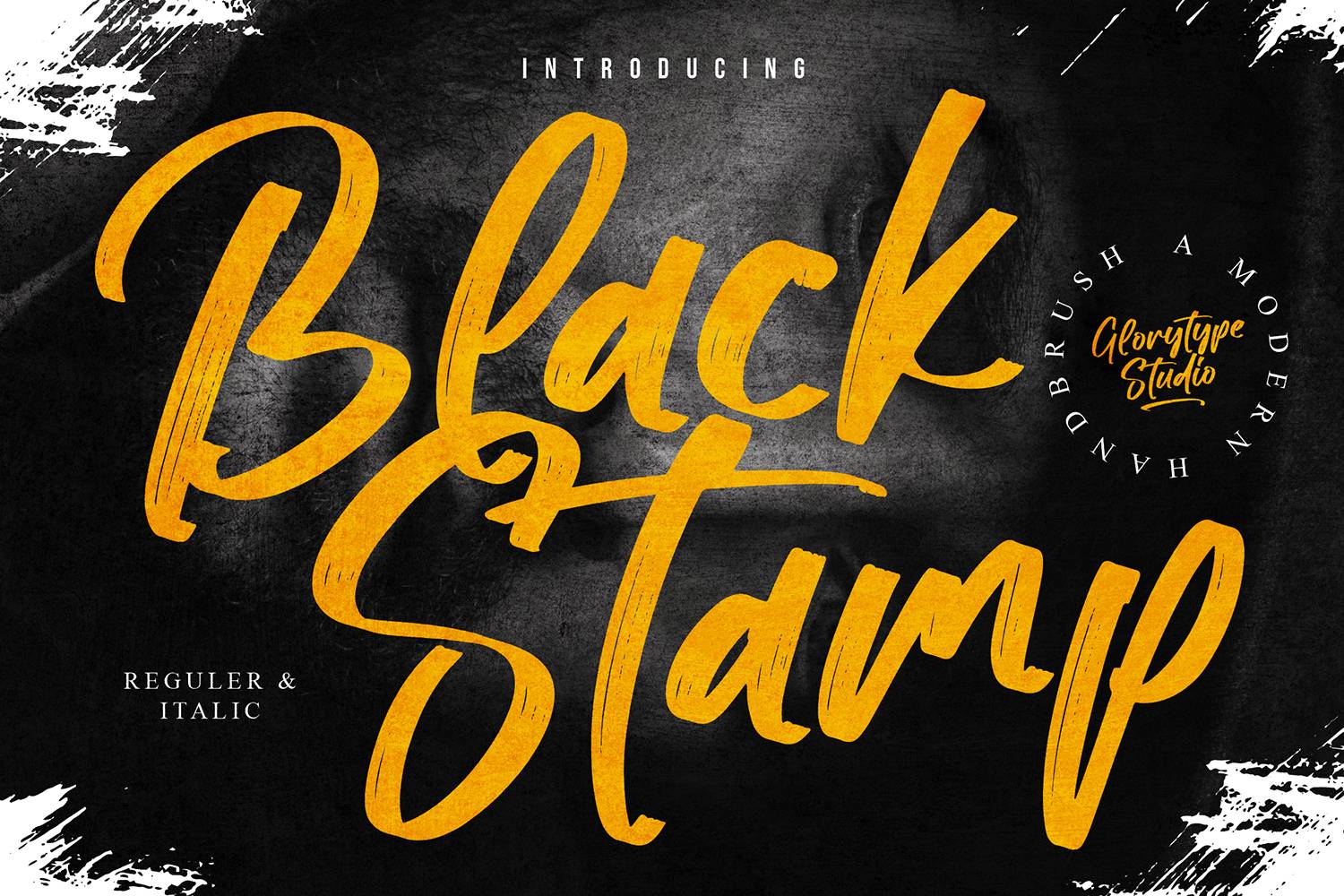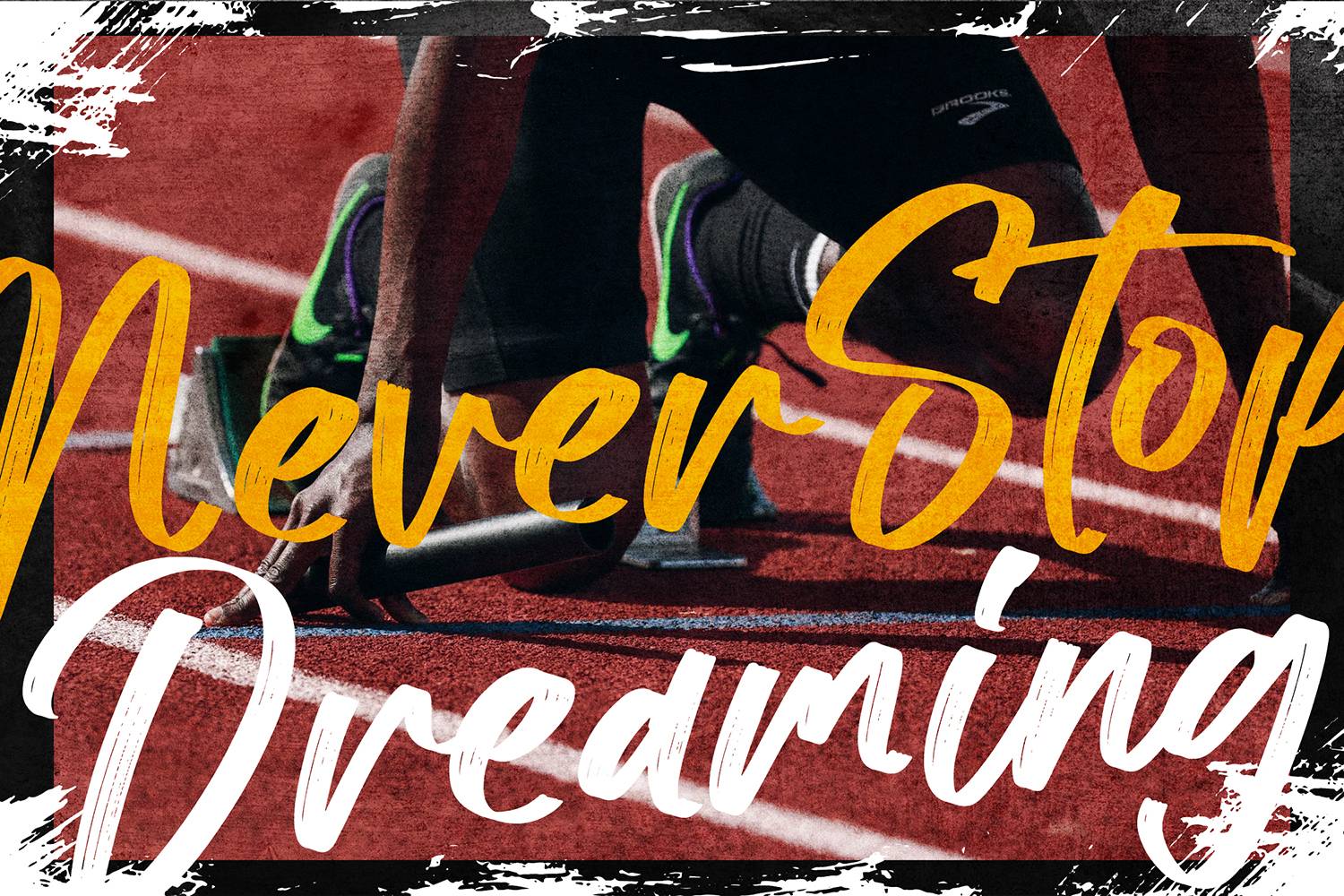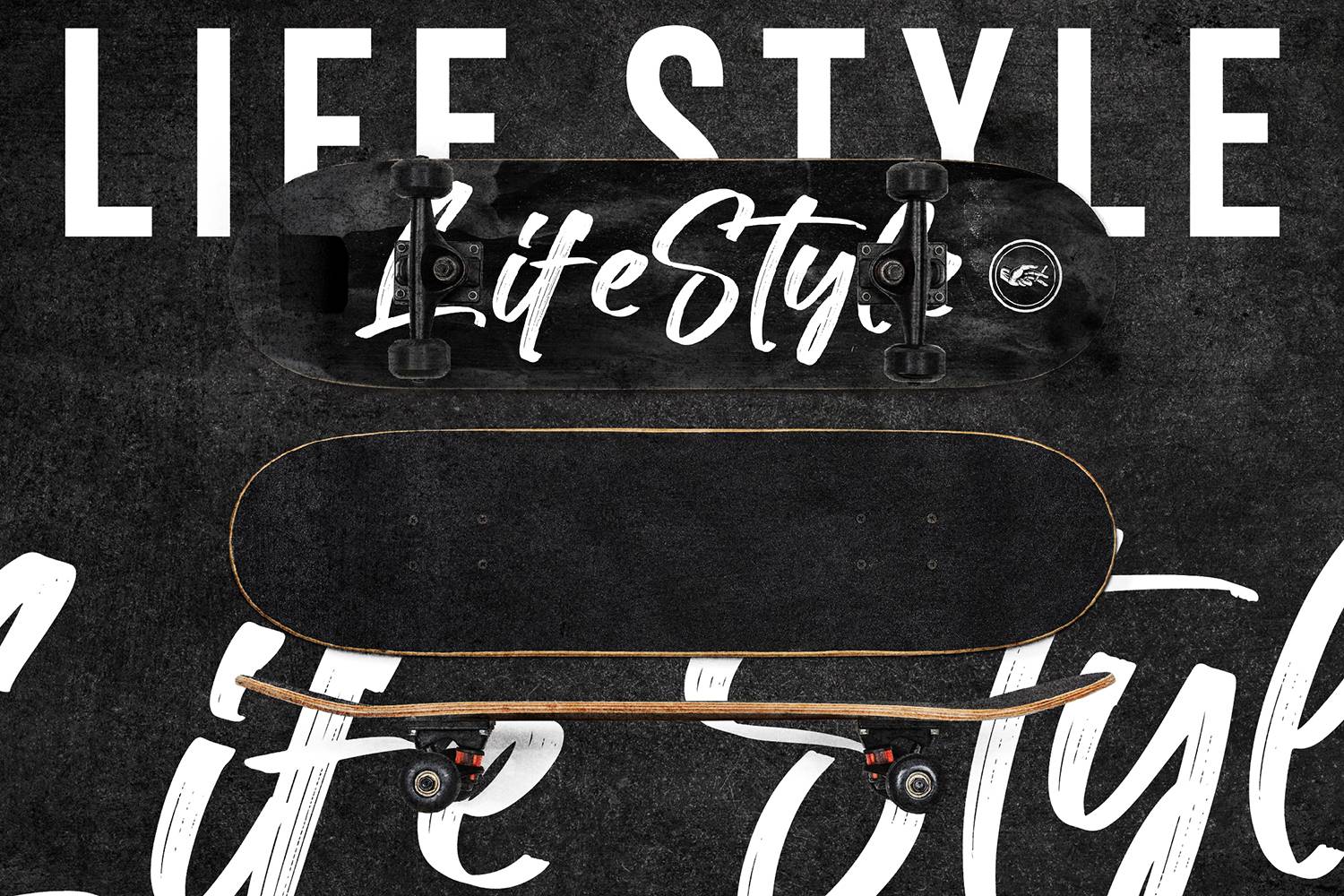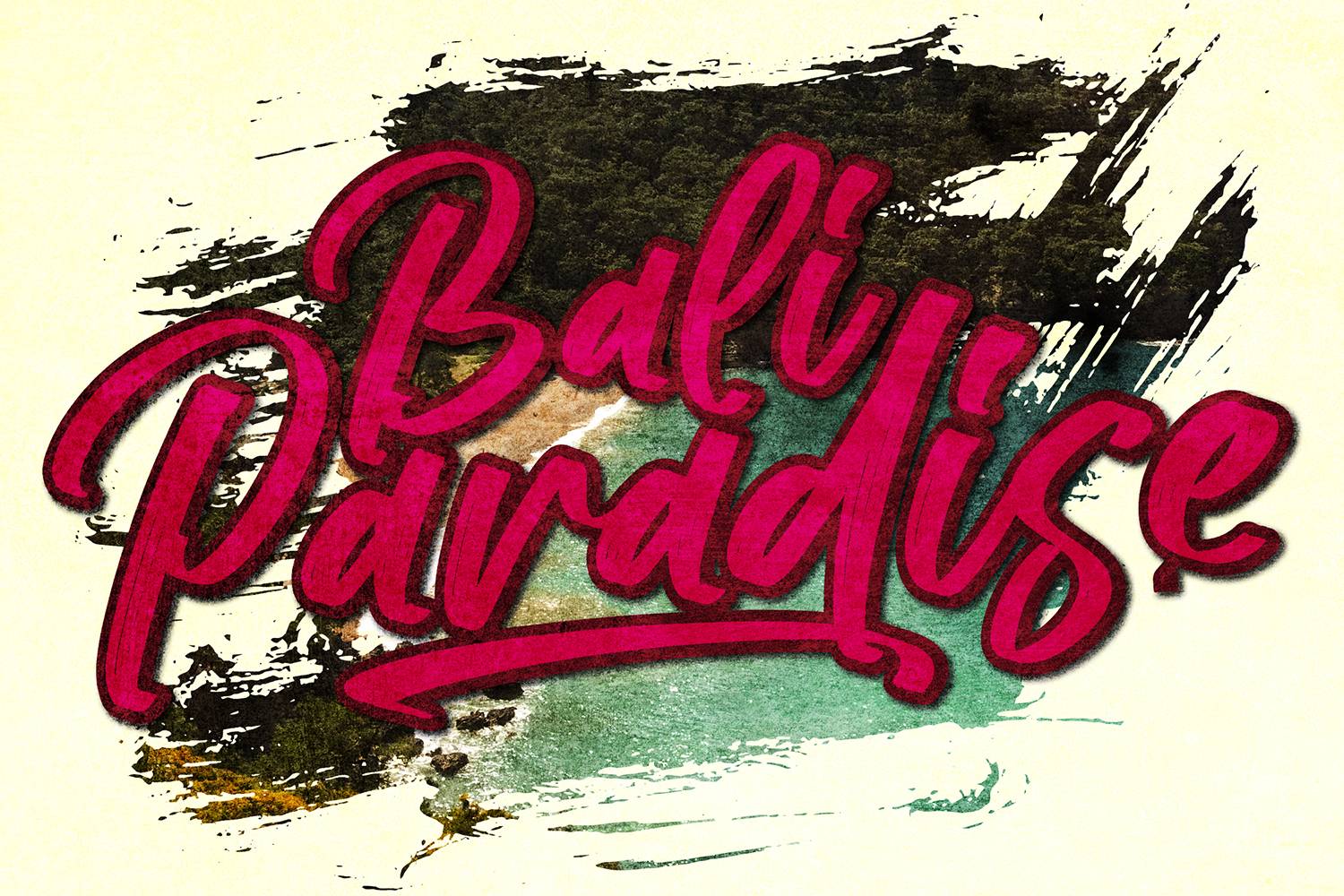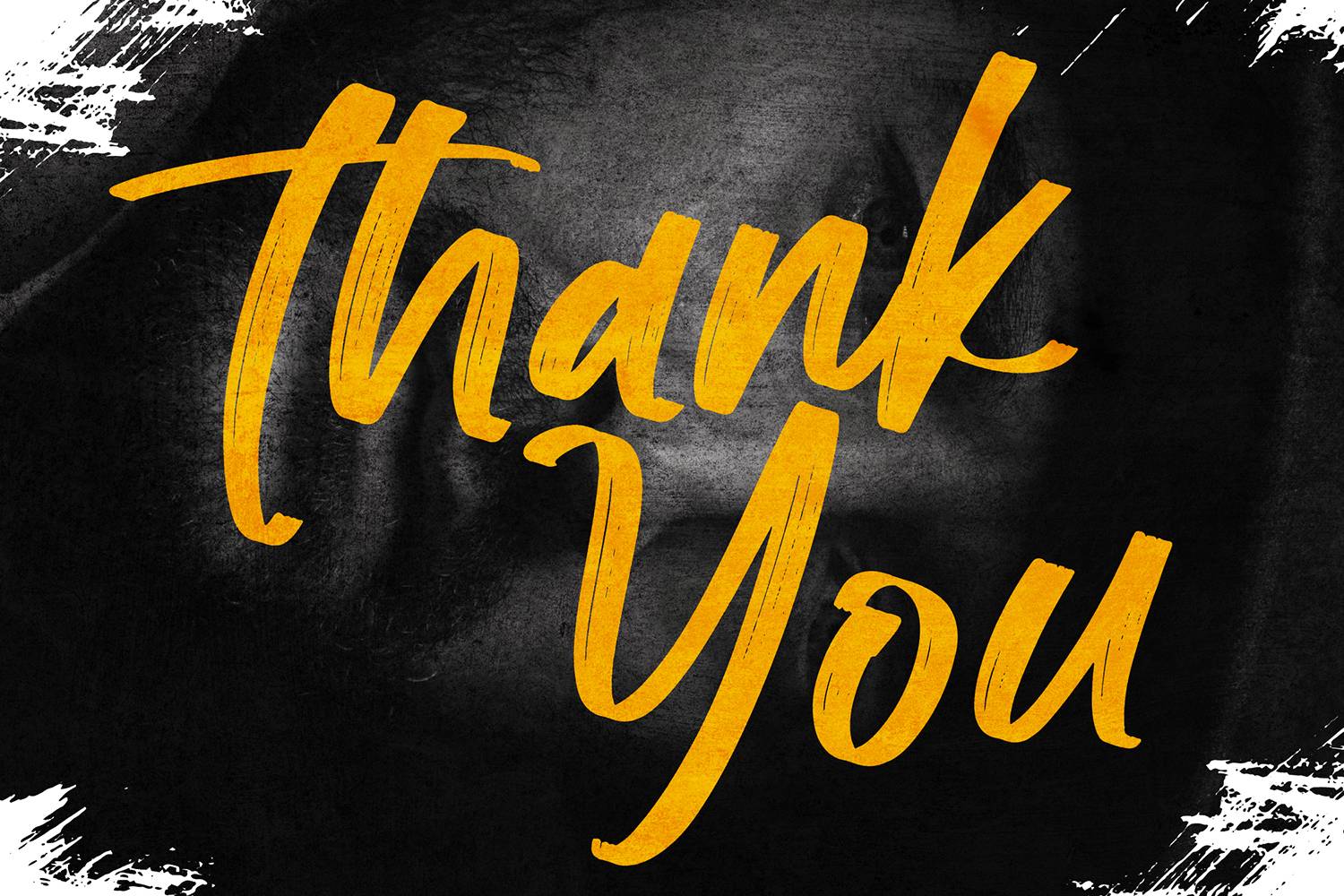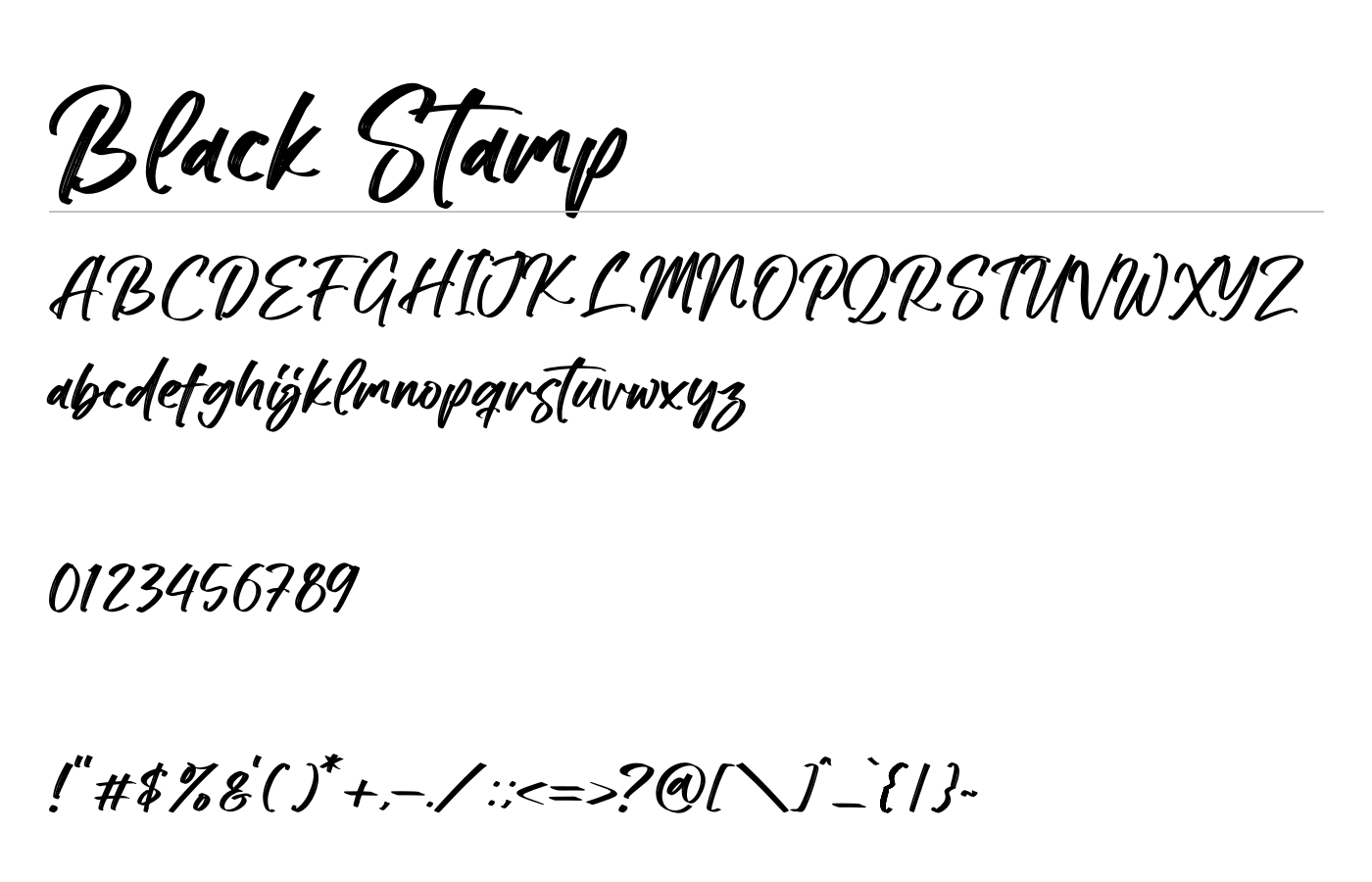
Black Stamp is a bold, expressive script font with a hand-painted brush style that brings energy and personality to any design. Its high contrast strokes and casual, flowing letterforms make it perfect for creative projects, branding, and headlines that want to capture a lively, artistic vibe. This font works well in artistic logos, posters, and packaging where a dynamic and personal touch is needed.
Black Stamp Font